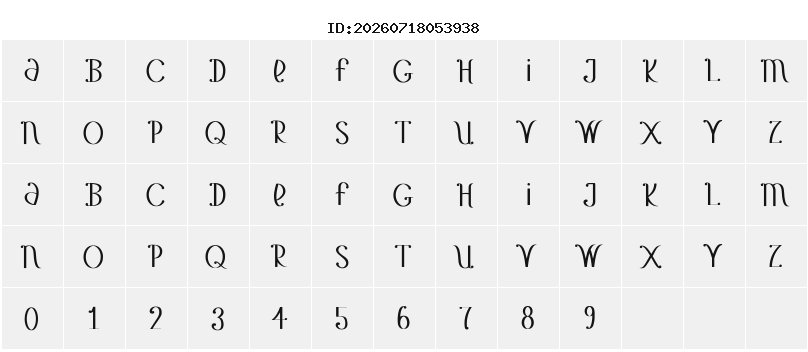
Chiquita Banana Preview
• Font Name: Chiquita Banana
• Full Font Name: Chiquita Banana
• Designer: Janet Cordahi
• Manufacturer: Janet Cordahi
About Chiquita Banana.ttf
Chiquita Banana.ttf is a modern, elegant sans-serif font designed for ultimate readability and visual harmony. Perfect for branding, headlines, web design, and print materials.